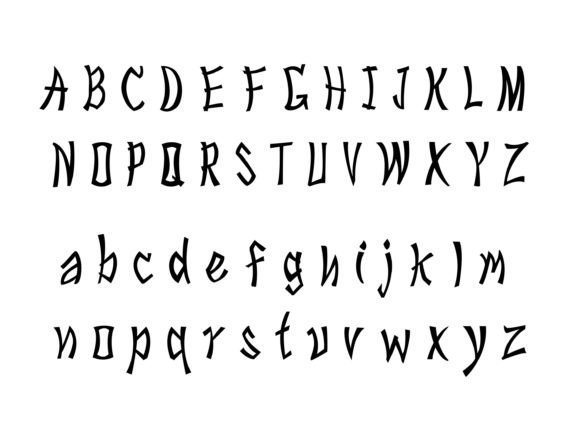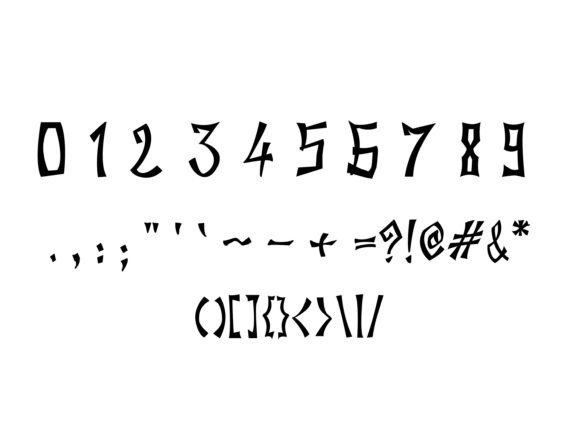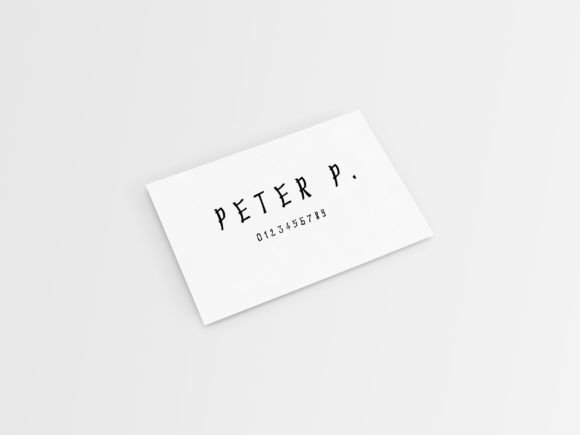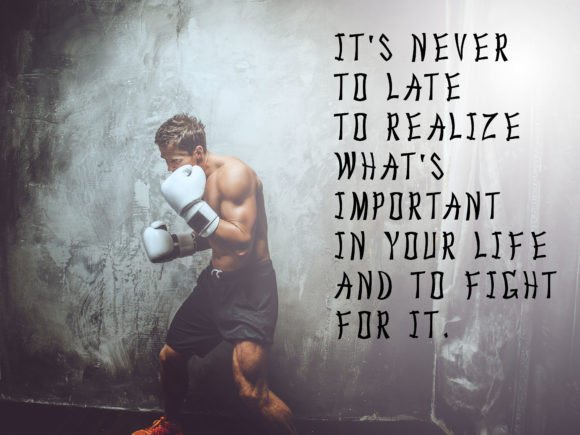
Fighter Font: The Quirky and Fun Display Font for Your Next Creative Project
Fighter is a unique display font that looks quirky and fun, perfect for your next creative project! This exciting font is designed to add a touch of personality and whimsy to your designs, making it ideal for crafters, designers, and anyone looking to add some flair to their work.
What Makes Fighter Font So Special?
Fighter font stands out from the crowd with its bold, playful, and eye-catching design. Its quirky and fun appearance makes it perfect for projects that require a dash of personality, such as:
- Social media graphics and ads
- Web designs and headings
Key Features of Fighter Font
Fighter font boasts several key features that make it a must-have for designers and crafters:
- Unique and quirky design: Fighter font has a one-of-a-kind appearance that’s sure to grab attention.
- Bold and playful: This font is perfect for making a statement and adding personality to your designs.
- Easy to read: Despite its bold and quirky design, Fighter font remains easy to read, even at smaller sizes.
- Versatile: Use Fighter font for a wide range of projects, from logos and posters to social media graphics and web designs.
How to Use Fighter Font in Your Designs
Using Fighter font in your designs is easy! Here are a few tips to get you started:
- Pair with complementary fonts: Combine Fighter font with simpler fonts to create visual interest and hierarchy.
- Experiment with colors and textures: Add depth and dimension to your designs with bold colors and textures.
- Play with sizing and layout: Use Fighter font in different sizes and layouts to create visual interest and emphasis.
Why Designers and Crafters Love Fighter Font
Fighter font has quickly become a favorite among designers and crafters, and for good reason:
- High-quality design: This font is designed with precision and care, ensuring a professional finish.
Tips and Tricks for Getting the Most Out of Fighter Font
Here are a few expert tips and tricks for getting the most out of Fighter font:
- Use it sparingly: Fighter font is bold and attention-grabbing, so use it sparingly to avoid overwhelming your designs.
- Mix and match: Combine Fighter font with other fonts and design elements to create unique and interesting combinations.
- Experiment with effects: Add depth and interest to your designs with effects like shadows, outlines, and textures.